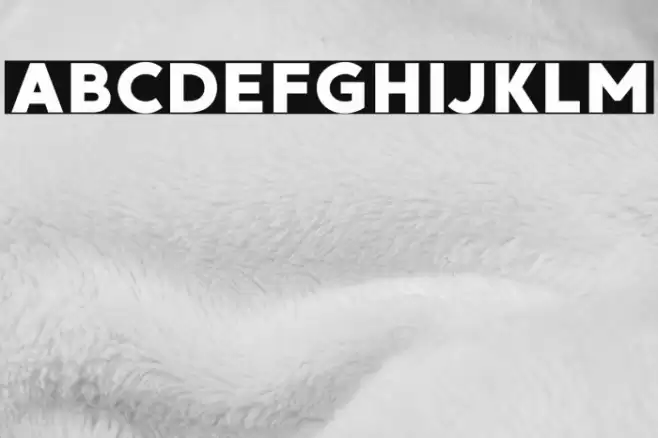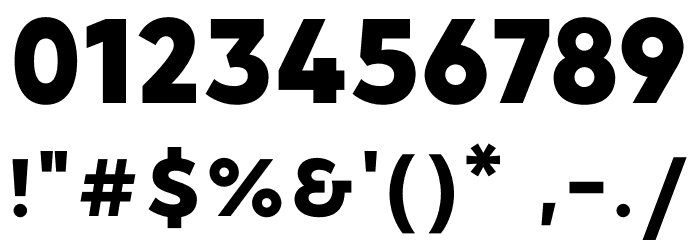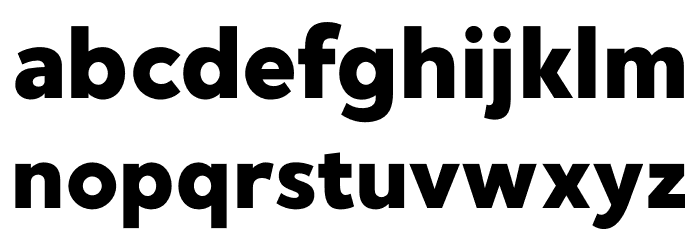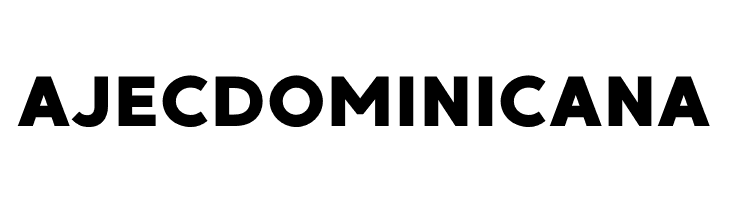
MADEGoodTimeGrotesk Font
MADEGoodTimeGrotesk Description
This font exhibits a bold and modern sans-serif style with clean, geometric shapes. The uppercase letters are uniform in height, providing a strong and cohesive appearance. The lowercase letters maintain a consistent x-height, contributing to readability and balance. The numerals are robust and align well with the overall design, making them suitable for various applications. The special characters are well-integrated, ensuring versatility in different contexts. The font's bold weight and clear structure make it ideal for impactful headlines and branding.
A bold, modern sans-serif font with geometric shapes and strong readability from Uncategorized fonts.
- Proposed Projects: Ideal for branding, advertising, headlines, and digital media where a strong, modern presence is desired.
- Use Case: Headlines, Logos, Branding